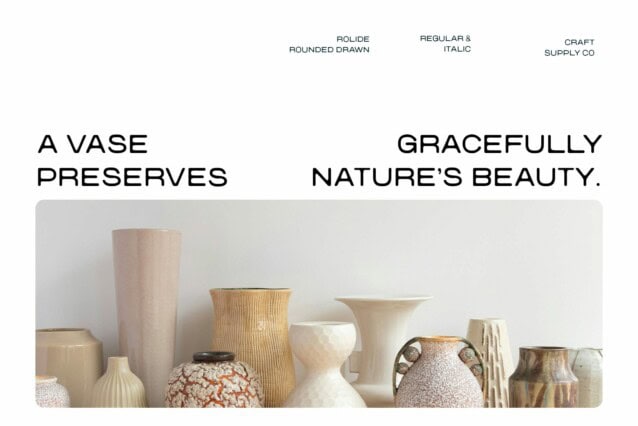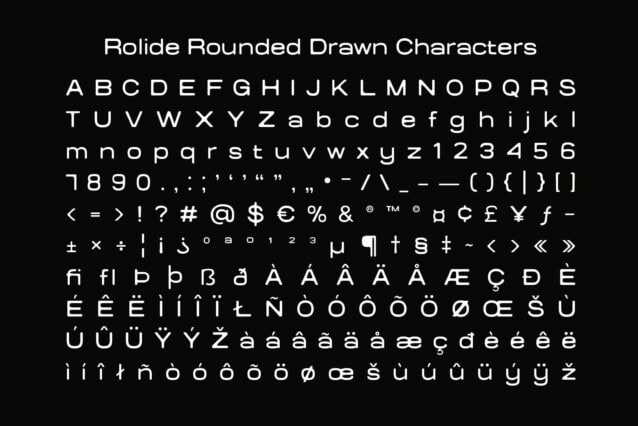
Rolide Rounded Drawn Font
Rolide Rounded Drawn Font is a modern sans-serif font featuring an expanded, wide, and well-proportioned structure. Its open and spacious letterforms create a futuristic yet contemporary look, perfect for designs that embrace innovation and creativity.